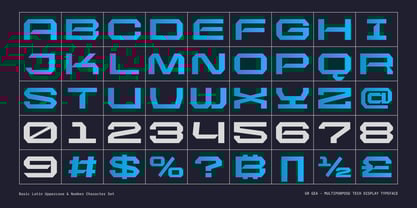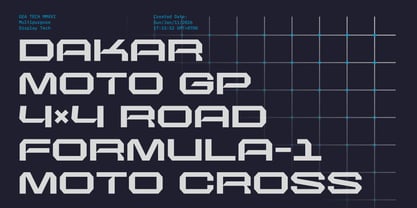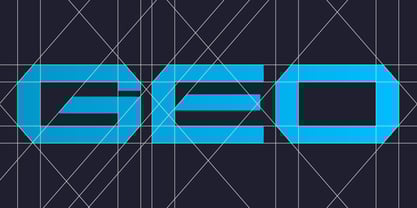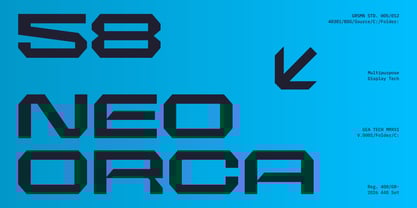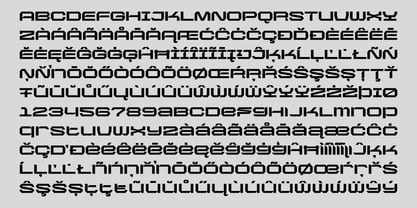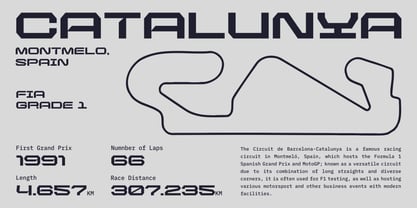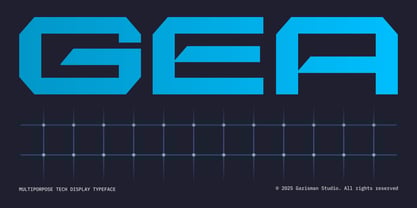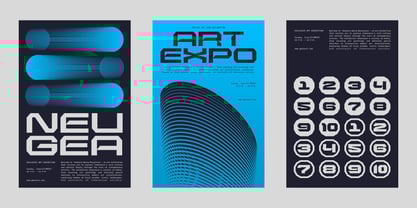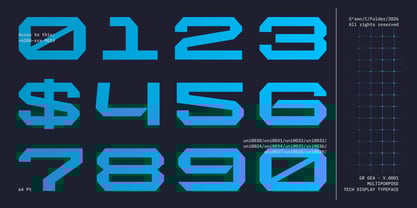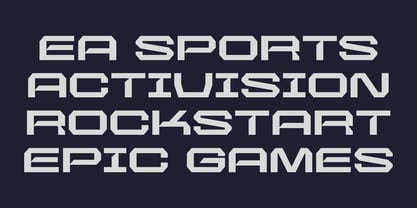
GR Gea
GR GEA is a multipurpose tech display typeface with a strong geometric skeleton and modular construction. Built as a sans serif display for sci-fi and technology themes, it blends sharp angles and straight lines to create a modern, futuristic voice for your titles. The uppercase letters and numerals share a unified, grid-based logic, giving wordmarks and number sets a consistent, engineered feel. GR GEA is ideal for logos, game titles, music artwork, film branding, mecha and robotic visuals, cyberpunk posters, industrial layouts, YouTube thumbnails, and bold editorial headlines. OpenType features include denominators, numerators, fractions, ordinals, stylistic alternates, localized forms, and a slashed zero, giving designers precise control over codes, stats, and technical information. With support for 88 languages and desktop and webfont formats, GR GEA is ready for global tech and entertainment projects.